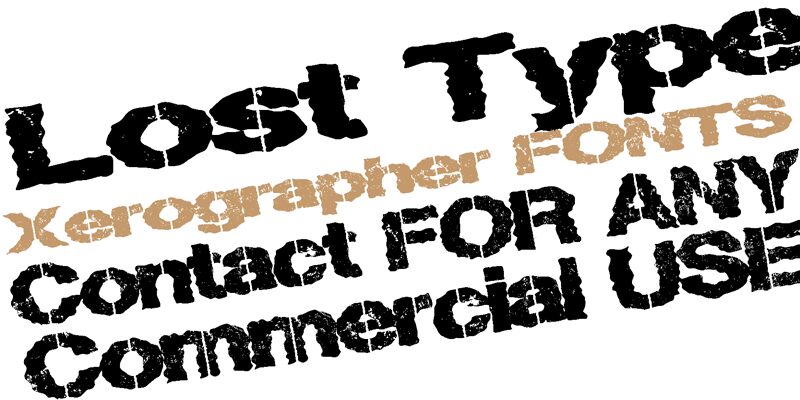
LostType
The Lost Type font, crafted by Xerographer Fonts' Max Infeld, exudes a captivating, weathered aesthetic. This bold, display-oriented typeface showcases a striking stencil-like appearance, evoking a sense of gritty, industrial charm. The eroded, textured glyphs instill a distinct sense of character, captivating the viewer and conveying a unique visual narrative.
This versatile font lends itself well to a variety of design applications, from rugged, urban-inspired branding to impactful headlines and attention-grabbing editorial layouts. The Lost Type font's bold presence and distinctive flair make it an excellent choice for projects seeking to cultivate a raw, authentic atmosphere, whether in print, digital, or environmental design.